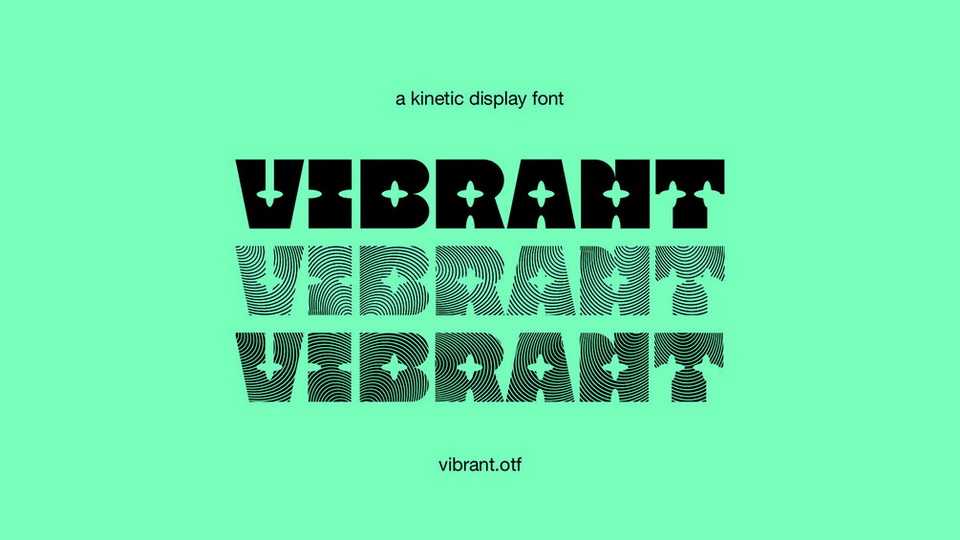
Download Vibrant is a kinetic display typeface. Vibrant font looks cool in a big sizes and in a different digital supports like, editorial, web, motion graphics, album covers…